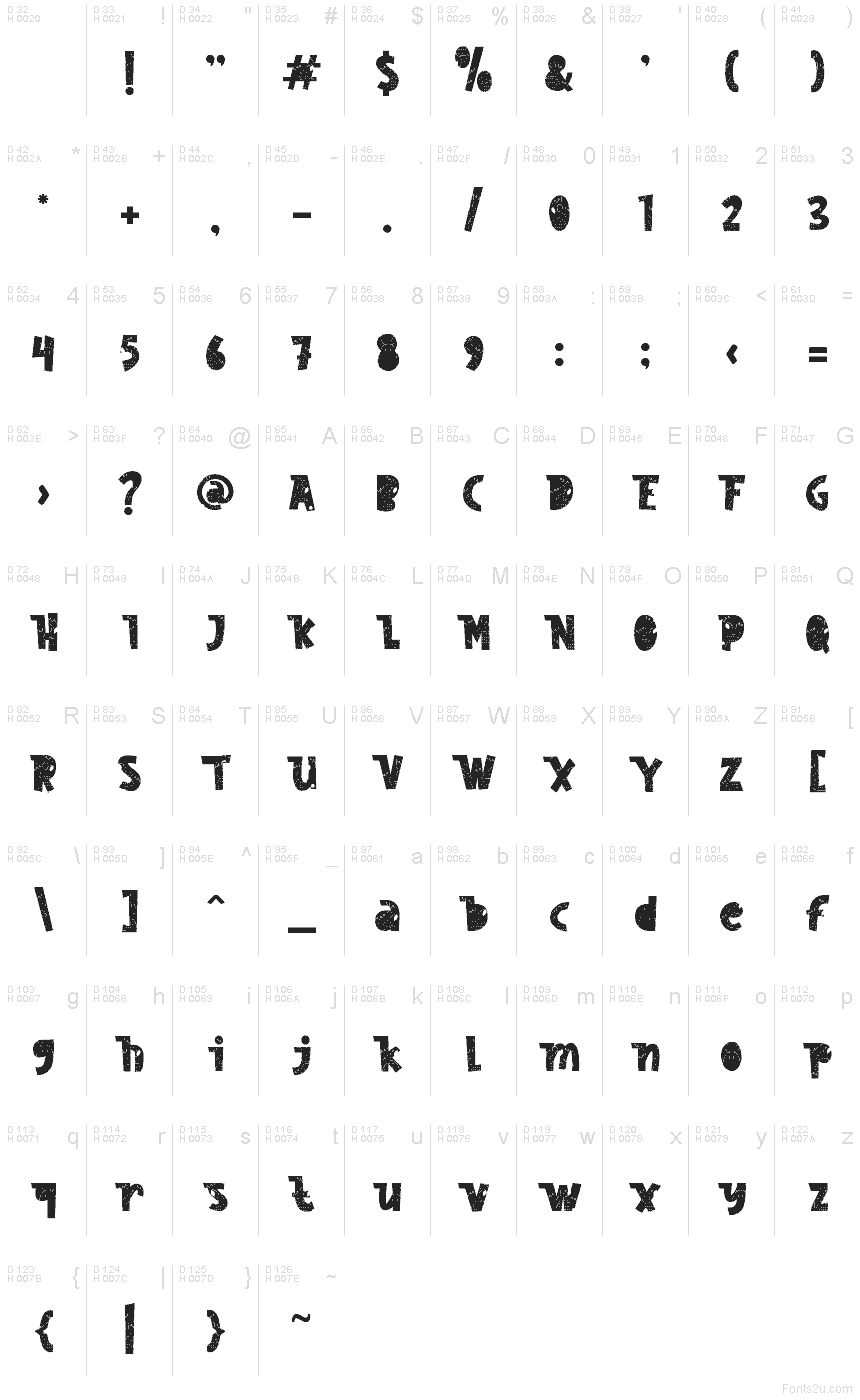
Nordic Whimsy Seven
Nordic Whimsy Seven font by PutraCetol Studio is a decorative display font with a whimsical theme and cultural influence. Its textured appearance alongside thin and thick strokes creates a signature style that’s similar to no other. It takes simplicity to another level as the main ingredient of its magic is creativity; achieved subtly using decorative elements.
Use Nordic Whimsy Seven for artistic illustrations, custom title headers, game interfaces, invitations for music festivals and events, role-play characters or clubs’ posters, travel projects related to Nordic countries (brochures/guides/maps), children’s stories covers/illustrations or greeting cards design.